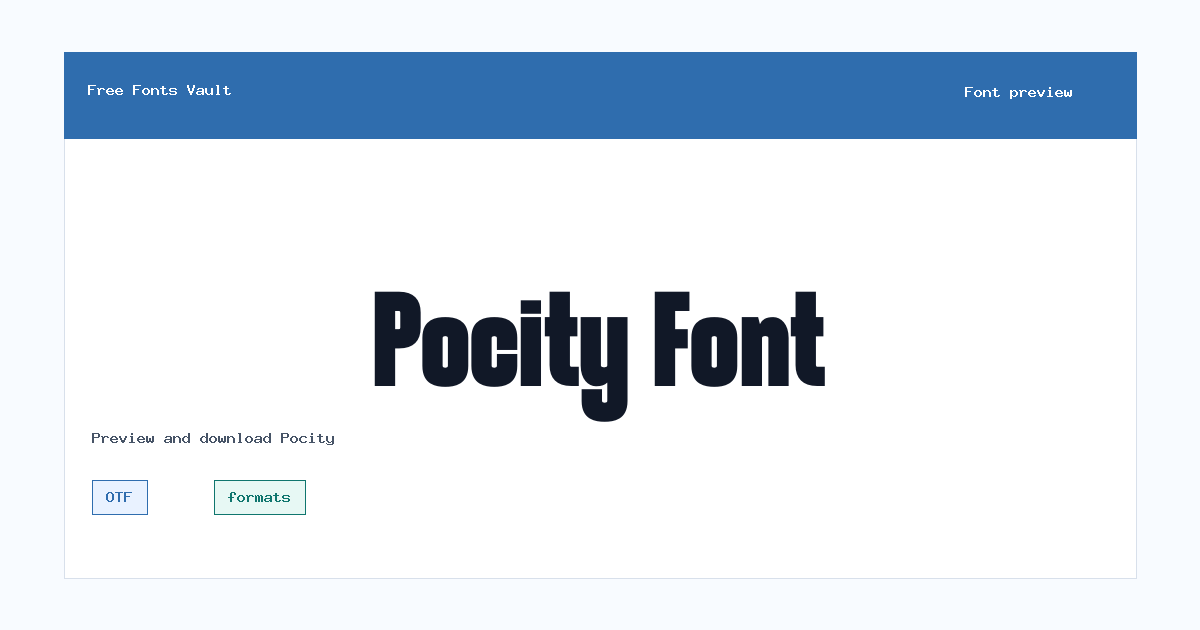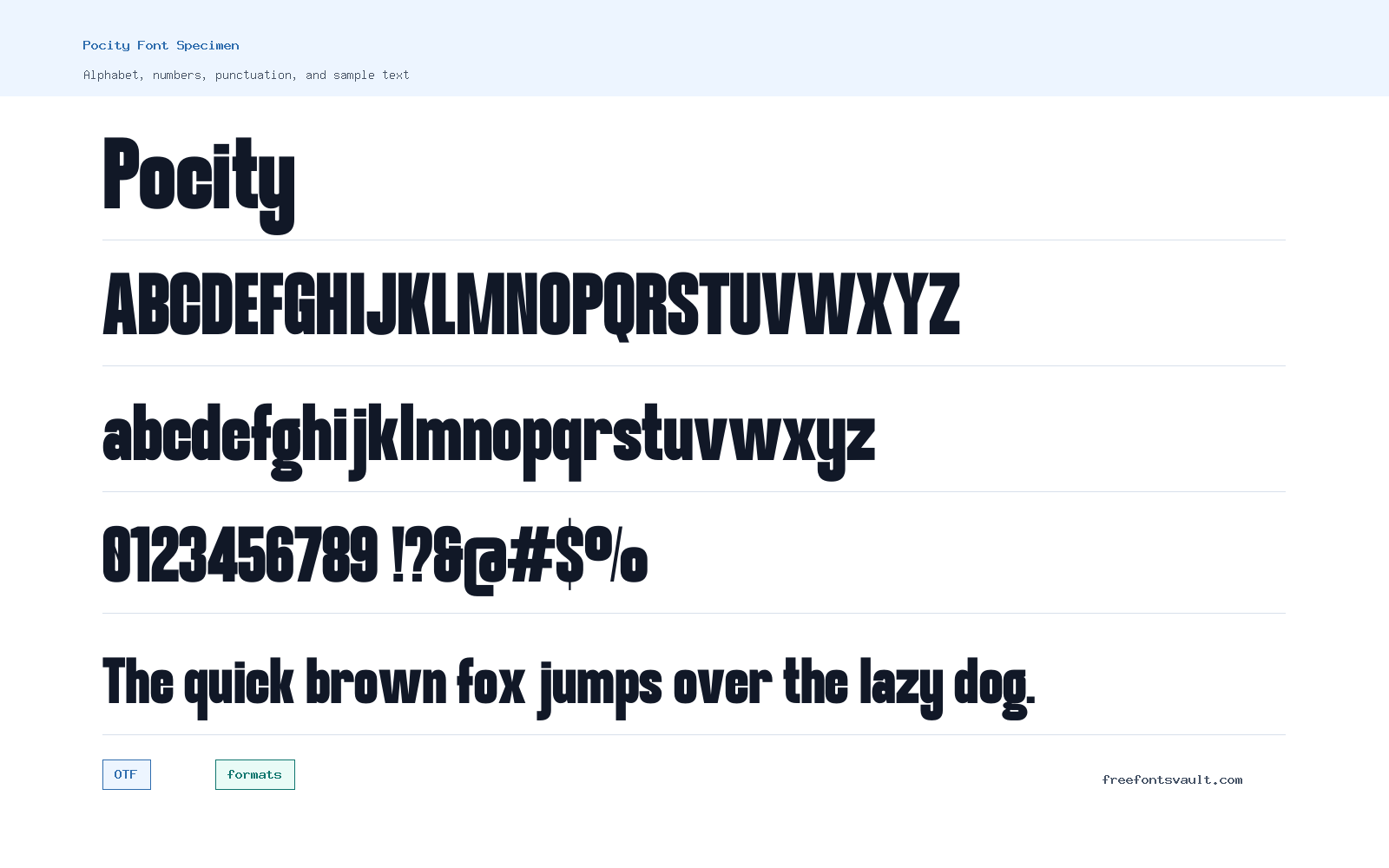
Pocity
- Designer Funtype Co
- Foundry Funtype Co
Pocity font.
Pocity is a display font from Funtype Co, suited to short text where the lettering needs to carry the visual tone. Use the preview tool to test your own words before downloading, especially for names, headings, and logo-style text.
About Pocity Font
Pocity works best when you give it space and keep the text short. Try it in uppercase, lowercase, and mixed case to see how the shapes behave in real wording. It can be a good choice for display-focused uses such as logos, title graphics, packaging-style headings, labels, social posts, and short brand names.
If you are comparing Pocity with other display fonts, pay attention to the counters, curves, and spacing around letters like A, O, S, and Y. Those details decide whether it feels right for a brand name or poster title. Keep the design simple around the type so the font shape remains the main visual element.
- Display-focused lettering for short words, titles, and logo-style previews
- Useful for testing uppercase, lowercase, and mixed-case text in the live preview
- Best used at larger sizes where the letter shapes remain clear
- Logo drafts and brand-name previews
- Poster titles and social media graphics
- Packaging-style headings and labels
- Short display text rather than long paragraphs
Pocity is credited to Funtype Co. Creative Fabrica also lists Pocity as a font product by Funtype Co.
What is Pocity best used for?
Pocity is best tested for short display text such as logos, titles, labels, packaging-style headings, and social graphics.
Should I use Pocity for paragraphs?
It is better for short text. For paragraphs, pair it with a clean, readable sans serif or serif font and keep Pocity for headings or accent words.
Who made Pocity?
Pocity is credited to Funtype Co.